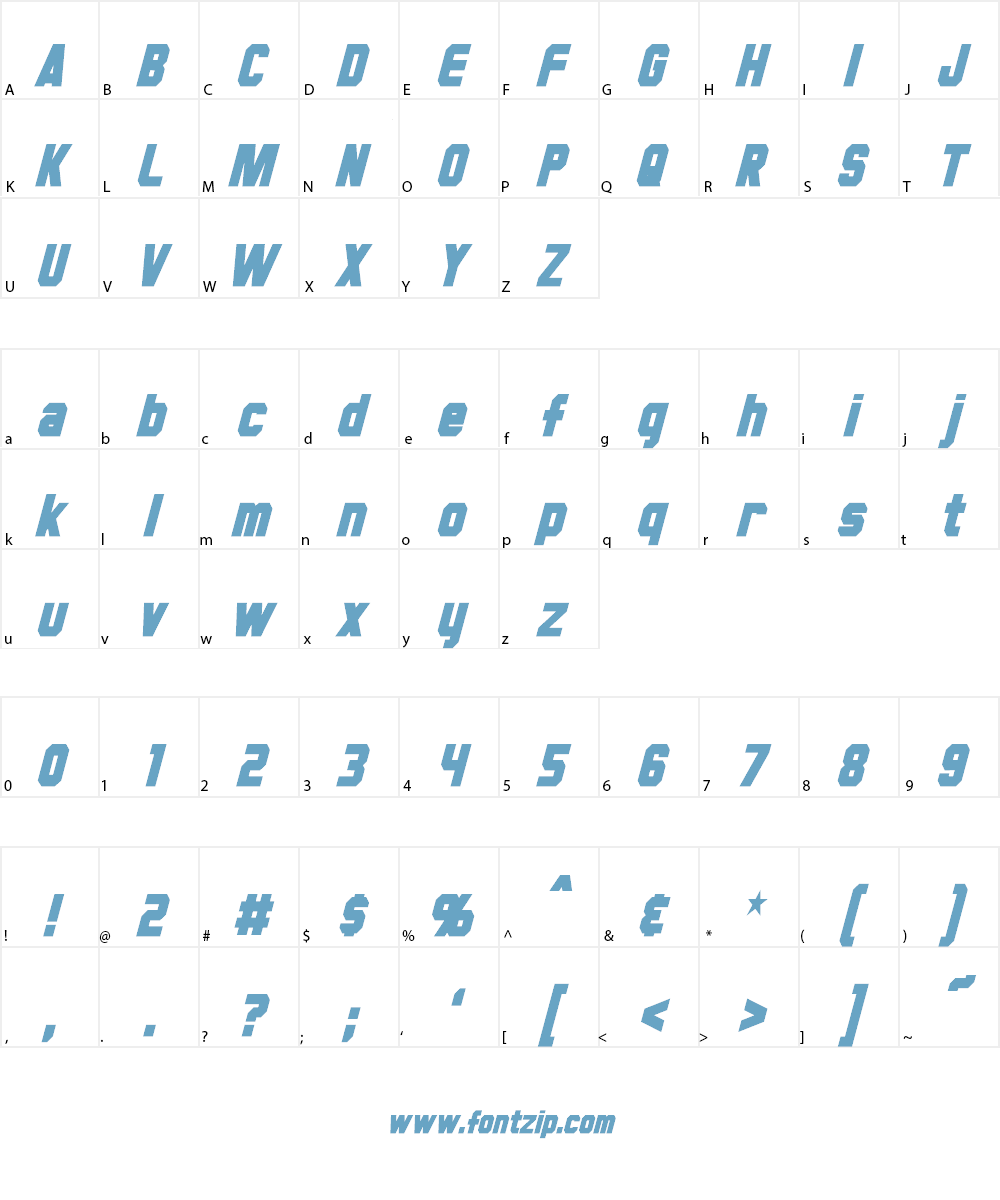
Hauser is a simple, angular typeface with a military feel, heavily inspired by the title logo of Hasbro’s classic GI Joe franchise. The font includes full alphabet, extended punctuation, and Euro. Includes regular, italic, condensed, and condensed-italic versions. (Version 1.10)